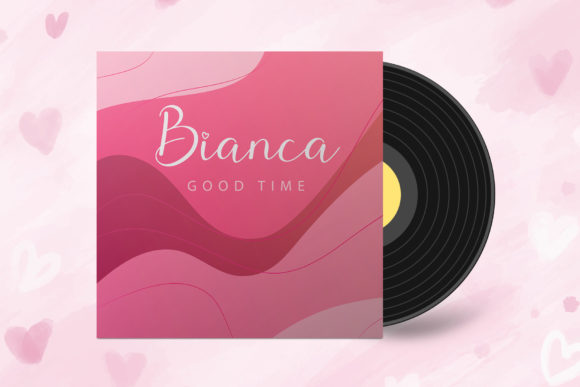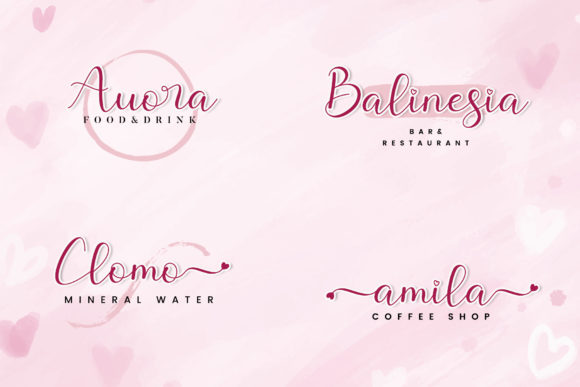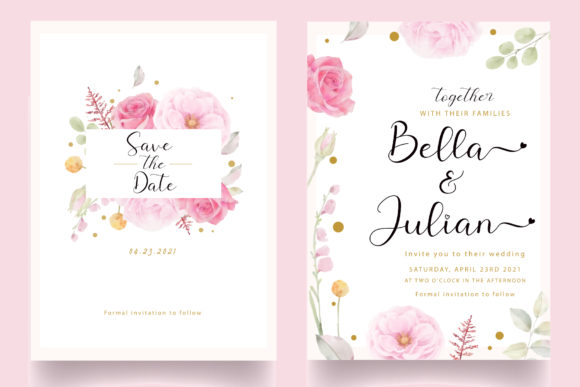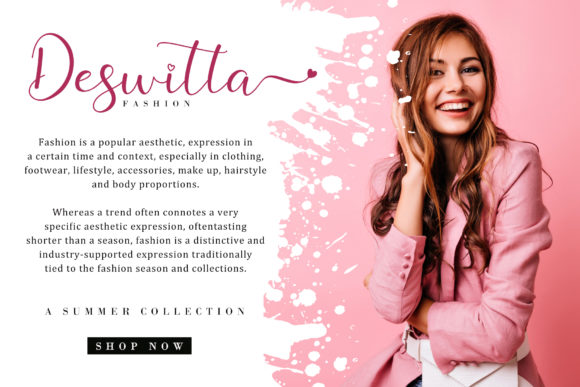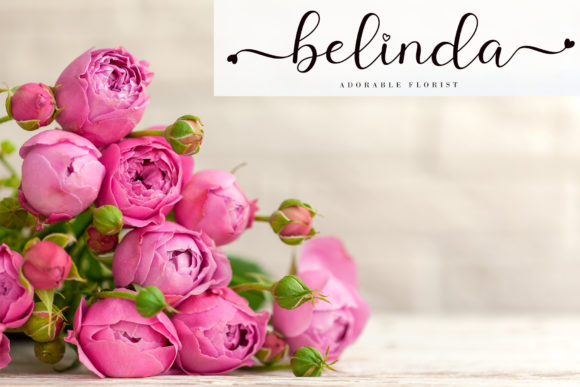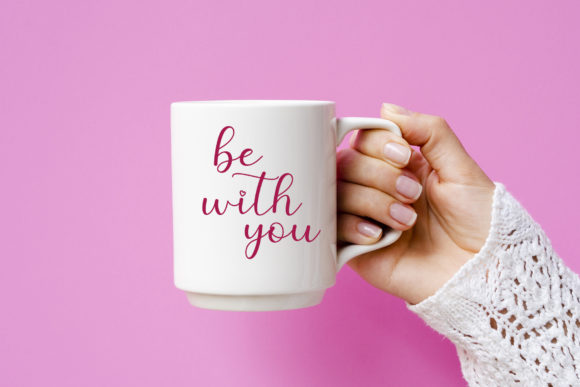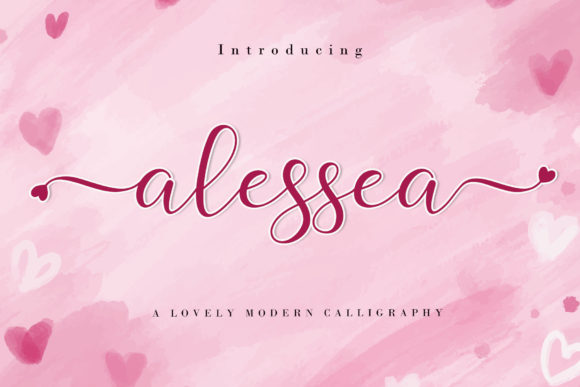
Introducing Alessea Font: A Romantic and Sweet Calligraphy Typeface
Are you a designer or crafter looking for a unique and elegant font to add a touch of sophistication to your projects? Look no further than Alessea Font, a romantic and sweet calligraphy typeface that is sure to capture your heart. With its casual yet elegant touch, Alessea Font is perfect for a variety of design projects, from wedding invitations and branding materials to digital graphics and crafts.
What Makes Alessea Font Special?
Alessea Font is a beautifully designed calligraphy typeface that features characters that dance along the baseline, giving it a playful and romantic feel. The font has a casual, yet elegant touch that makes it perfect for designs that require a touch of sophistication. Whether you’re creating a wedding invitation, a logo, or a digital graphic, Alessea Font is sure to add a touch of elegance and refinement.
One of the best things about Alessea Font is that it is PUA (Private Use Area) encoded, which means that you can access all of the glyphs and swashes with ease. This makes it easy to customize your designs and add unique touches that will make your projects stand out. With PUA encoding, you can access a wide range of glyphs and swashes, including ligatures, ornaments, and other special characters.
Alessea Font is perfect for designers and crafters who are looking for a unique and elegant font to add to their projects. Whether you’re creating digital graphics, printing crafts, or designing branding materials, Alessea Font is sure to be a great addition to your design toolkit. The font is versatile and can be used for a wide range of projects, from formal events like weddings and galas to more casual designs like social media graphics and blog posts.
Key Features of Alessea Font
- Romantic and sweet calligraphy typeface: Alessea Font features a beautiful, handwritten script that is perfect for designs that require a touch of elegance and sophistication.
- Casual yet elegant touch: The font has a casual, yet elegant feel that makes it perfect for a wide range of design projects.
- PUA encoded: Alessea Font is PUA encoded, which means that you can access all of the glyphs and swashes with ease.
- Characters that dance along the baseline: The font features characters that dance along the baseline, giving it a playful and romantic feel.
- Perfect for designers and crafters: Alessea Font is perfect for designers and crafters who are looking for a unique and elegant font to add to their projects.
Tips and Tricks for Getting the Most Out of Alessea Font
Here are a few tips and tricks for getting the most out of Alessea Font:
- Experiment with different sizes and colors: Alessea Font looks great in a variety of sizes and colors. Experiment with different combinations to find the one that works best for your design.
- Use the glyphs and swashes to add unique touches: With PUA encoding, you can access a wide range of glyphs and swashes. Use these to add unique touches to your designs and make them stand out.
- Pair with other fonts: Alessea Font pairs well with other fonts, such as sans serif fonts and script fonts. Experiment with different pairings to find the one that works best for your design.
Alessea Font is a romantic and sweet calligraphy typeface that is perfect for designers and crafters who are looking for a unique and elegant font to add to their projects. With its casual yet elegant touch, PUA encoding, and characters that dance along the baseline, Alessea Font is sure to be a great addition to your design toolkit. Whether you’re creating digital graphics, printing crafts, or designing branding materials, Alessea Font is the perfect choice.